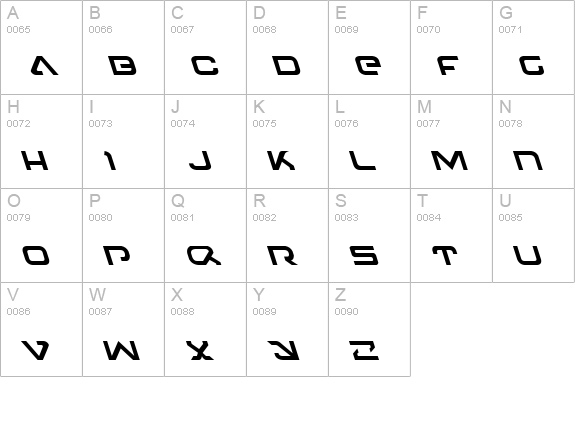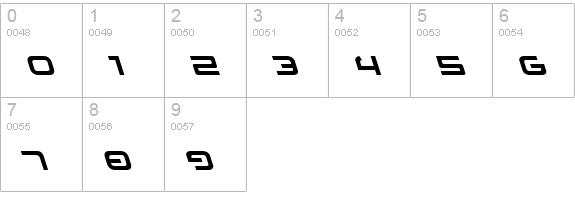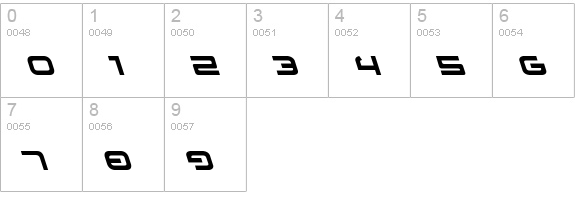
Introducing the captivating 4114 Blaster Leftalic font, a modern and dynamic typeface that exudes a sense of energy and creativity. With its bold strokes and unique slanted design, this font is perfect for making a statement in your projects. What makes 4114 Blaster Leftalic font even more appealing is that it is available for free download at FontsMarket.com. This means you can easily access this striking font to enhance your designs without any cost involved. Whether you're working on branding materials, posters, or digital projects, 4114 Blaster Leftalic font will add a touch of flair and originality to your work. Don't miss out on the opportunity to elevate your designs with this eye-catching font - download 4114 Blaster Leftalic today for free at FontsMarket.com and unleash your creativity!